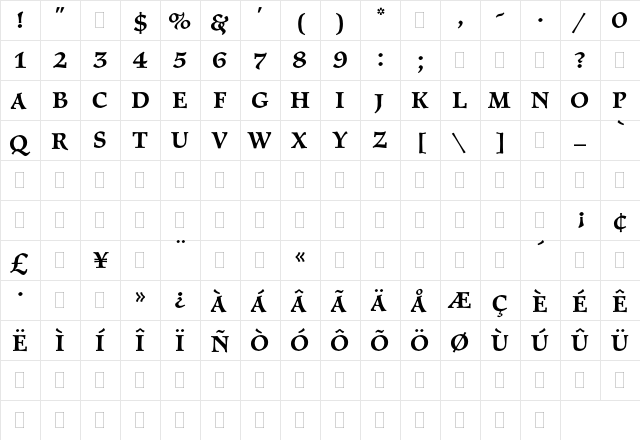
Prague Plain
Design Context for Prague Typeface
Prague takes a measured approach to typography — its balanced proportions and neutral character make it a reliable workhorse for both digital and print work.
Pro Tip: Pair Prague with a font of contrasting weight or personality to build a more expressive typographic hierarchy.